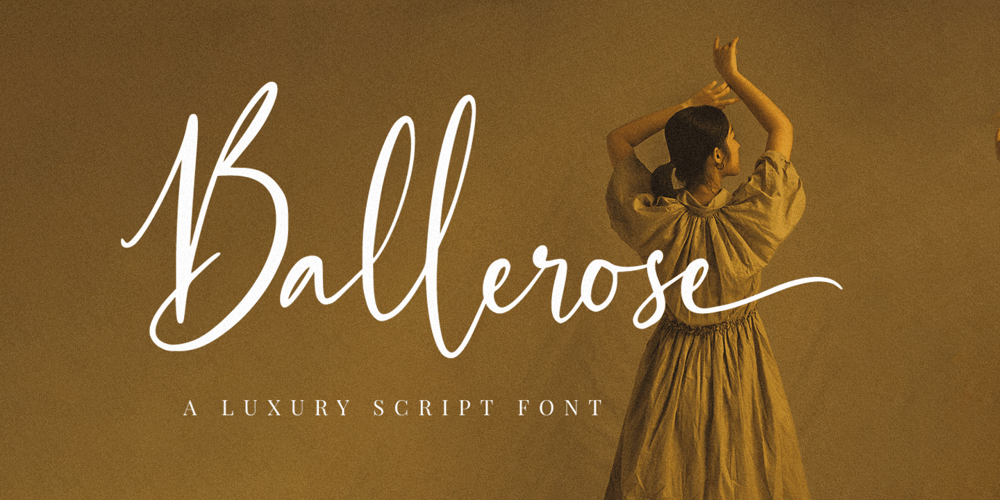
Ballerose Font Family was designed by Novia Himatunnisa and published by Nissa Nana. Ballerose contains 1 styles and family package options. Ballerose is an elegant and flowing handwritten font. It is PUA encoded which means you can access all of the glyphs and swashes with ease! Fall in love with this font and bring your projects to the highest levels!